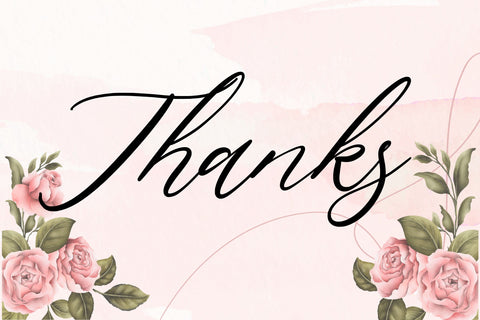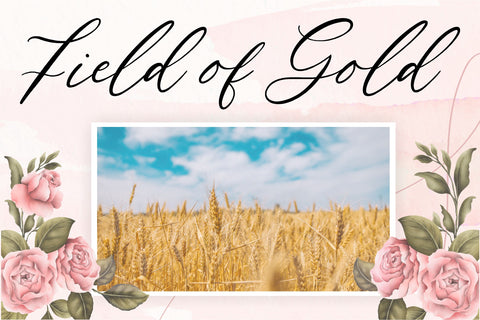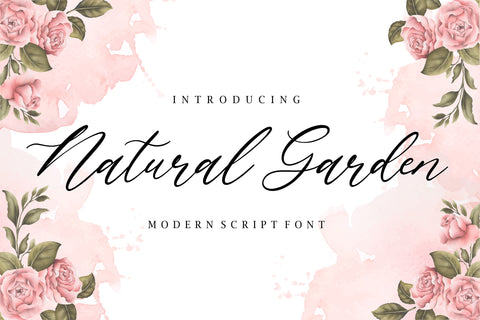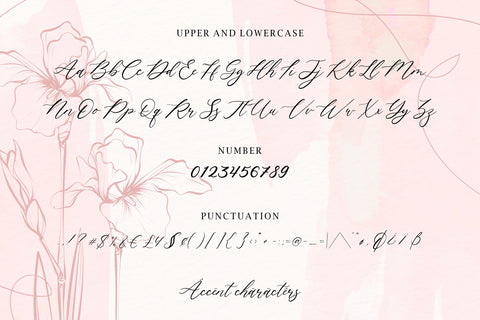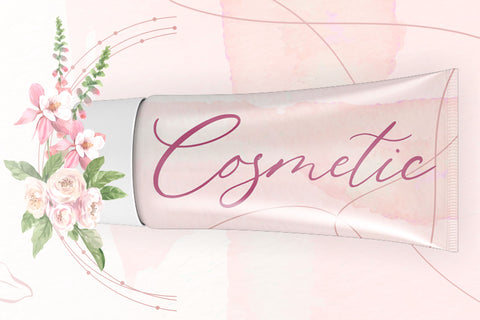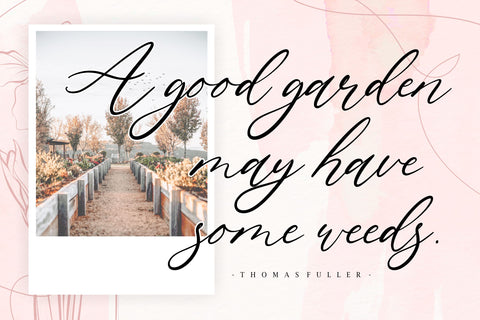
Natural Garden modern script font
Proudly Present, Natural Garden Font.
Natural Garden is a modern script font.
Natural Garden is perfect for product packaging, branding project, megazine, social media, wedding or just used to express words above the background.